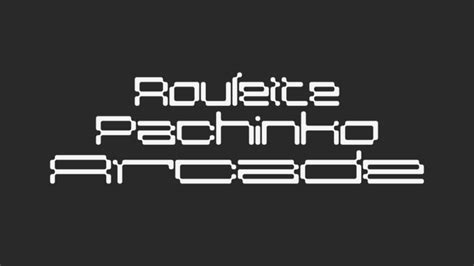
Oscan Expanded Font: A Typographic Deep Dive
Hey guys, let’s dive into the fascinating world of typography and talk about a specific font that’s been catching some eyes: the Oscan expanded font . Ever stumbled upon a typeface that just feels right for a certain design? That’s the power of well-crafted fonts, and Oscan expanded is definitely one to explore. We’re going to unpack what makes it tick, where it shines, and why you might want to add it to your design arsenal. So, grab your favorite beverage, get comfy, and let’s get this typographic party started!
Understanding the Oscan Expanded Font Family
So, what exactly is the Oscan expanded font? At its core, it’s a typeface designed with a specific aesthetic in mind. The “expanded” part is a huge clue here, guys. It means the letterforms are wider than their standard counterparts. Think of it like stretching out a regular font – but done with purpose and elegance. This increased width gives the font a distinct presence and a unique character that standard fonts just can’t replicate. The Oscan font family, in general, likely draws inspiration from historical or stylistic roots, and the expanded version takes that foundation and gives it a bold, attention-grabbing twist. When we talk about expanded fonts, we’re not just talking about making letters fat; we’re talking about creating visual harmony and impact through deliberate proportions. The Oscan expanded font achieves this by carefully balancing the increased width with other typographic elements like stroke contrast, x-height, and serif (or lack thereof) details. This thoughtful design process ensures that while it’s expanded, it remains highly legible and aesthetically pleasing. It’s the kind of font that can command attention without shouting, making it perfect for headlines, display text, or any situation where you want your message to stand out with sophisticated flair. The broader strokes and more generous spacing inherent in an expanded design can also contribute to a feeling of stability and confidence, making it a great choice for branding that aims to convey trust and authority. We’ll be exploring its characteristics, its applications, and why this particular font might be your next go-to for making a lasting impression in your designs. Get ready to appreciate the nuances that make Oscan expanded a truly special typographic tool.
The Anatomy of Expanded Type
Let’s break down the anatomy of what makes an expanded font like Oscan expanded so special. You see, it’s not just about making letters wider. Type designers spend ages perfecting these details , and with expanded fonts, there are specific considerations. Firstly, the letterforms themselves are designed with a wider horizontal emphasis . This means the bowls of letters like ‘b’ and ’d’, or the counterforms in ‘o’ and ‘e’, are more open and generous. The ascenders and descenders (the parts of letters that go above the x-height or below the baseline) might be slightly shorter or adjusted to maintain balance within the wider letter. The stroke contrast , which is the variation between thick and thin strokes, is also crucial. In many expanded fonts, this contrast might be subtle or even non-existent (in sans-serifs) to maintain a robust and even appearance across the wider forms. For Oscan expanded, depending on its classification (serif or sans-serif), this detail will greatly influence its personality. A sans-serif expanded font might feel very modern, clean, and bold, while a serif expanded font could evoke a sense of classic grandeur or vintage charm, but with a modern, impactful twist due to the width. The kerning and spacing are also meticulously handled. Designers have to ensure that even with the wider letters, the text doesn’t feel too spread out and remains readable. The optical adjustments made to spacing between specific letter pairs are vital for creating a smooth reading experience. Think about the space between a ‘W’ and an ‘A’ versus an ‘O’ and an ‘N’ – these subtleties are amplified in an expanded design. The overall visual weight of the Oscan expanded font is also a key factor. Its wider stance means it carries more visual weight than a condensed or even a regular font. This makes it excellent for catching the eye, but designers need to be mindful of this when pairing it with other typefaces or using it in large blocks of text. This increased weight can lend a feeling of solidity and importance to whatever it’s used for. The goal is always to create a harmonious and functional typeface, and for Oscan expanded, achieving this balance in its wider proportions is what sets it apart. It’s a masterclass in how subtle changes in form can lead to dramatic differences in impact and character, making it a powerful tool for any designer looking to make a statement.
The Oscan Expanded Font: Where Does It Shine?
Alright, guys, now that we’ve geeked out about the nitty-gritty of expanded type, let’s talk about where the Oscan expanded font truly shines. Because, let’s be honest, not every font is a one-size-fits-all solution, right? This font’s unique characteristics make it a star player in specific scenarios. Headlines and display text are probably its natural habitat. That bold, wide stance immediately grabs attention. Imagine a striking movie poster, a high-impact advertisement, or the title of a magazine spread – Oscan expanded can give these elements a powerful, unforgettable presence. It’s the kind of font that says, “Hey, look over here!” without being obnoxious. It lends an air of sophistication and confidence to any prominent text. Think of brands that want to convey strength, luxury, or a contemporary edge; Oscan expanded can be a fantastic choice for their wordmarks or taglines. Logos and branding are another area where this font can excel. Its distinctive shape can make a brand’s identity instantly recognizable. When a logo needs to be bold, memorable, and stand out on various platforms, an expanded font like Oscan can provide that visual punch. It feels grounded and established, which is often a desirable trait for many businesses. Event invitations and posters can also benefit immensely. If you’re promoting an event that needs to feel special, perhaps a gala, a concert, or a gallery opening, Oscan expanded can add a touch of elegance and importance to the event details. It elevates the perceived value of the occasion. Furthermore, short-form copy where impact is key can utilize this font effectively. While it might not be the best choice for long paragraphs of body text due to its width (potentially slowing down reading speed over extended periods), for impactful quotes, call-to-action buttons, or even short, punchy descriptions, it can be incredibly effective. Its legibility is usually maintained at larger sizes, making it suitable for signage or informational displays where clear, bold messaging is paramount. The key is understanding its strengths: boldness, presence, and a distinctive character . When you need your text to make a statement and leave a lasting impression, Oscan expanded is a font that deserves serious consideration. It’s not just a font; it’s a design element that can shape the entire perception of your message.
Pairing Oscan Expanded with Other Fonts
Okay, so you’ve got this awesome Oscan expanded font, and you’re ready to make some design magic. But wait! What do you pair it with? This is where things get really interesting, guys. Choosing the right complementary fonts is crucial to creating a balanced and professional design. Think of it like a good outfit – you need the right accessories to make it pop. For Oscan expanded, which is inherently bold and attention-grabbing, you generally want to pair it with fonts that offer contrast in terms of weight, style, or width. A great go-to is a clean, legible sans-serif font for your body text. Something simple like Open Sans, Lato, or Roboto can provide a neutral, readable counterpoint to the more expressive Oscan expanded. This pairing creates a clear hierarchy: the Oscan expanded grabs attention for your headlines, and the simpler sans-serif makes your main content easy to digest. Alternatively, a classic serif font can work wonders, especially if Oscan expanded has a more modern or geometric feel. A timeless serif like Garamond, Merriweather, or even a more robust slab serif can add a layer of sophistication and tradition. This combination can be particularly effective for branding that aims for a blend of modern impact and classic appeal. Consider the mood you want to convey . If Oscan expanded feels strong and authoritative, pairing it with a softer, more humanist font can create an interesting dynamic. If Oscan expanded is sleek and minimalist, perhaps a font with a bit more personality or ornamentation could provide a delightful contrast. Don’t be afraid of exploring different weights within a font family . If Oscan expanded is, say, a bold display font, pairing it with the light or regular weights of the same font family (if available and appropriate) can create a cohesive yet varied look. The rule of thumb is contrast, not chaos . You want the fonts to complement each other, not compete. This means ensuring they share some underlying visual harmony, perhaps in their x-height, serif style (if applicable), or overall character. Test, test, test! What looks good on paper (or screen) might need tweaking. Zoom in, zoom out, and see how the fonts interact at different sizes and in different contexts. When Oscan expanded is used for a headline, how does the body text sit below it? Does it feel balanced? Does it draw the eye where you want it to? Be mindful of too many fonts . Generally, sticking to two or three font families is a safe bet to avoid a cluttered and unprofessional look. Oscan expanded should be the star, and its supporting cast should enhance, not overwhelm, its performance. By carefully selecting its typographic companions, you can ensure that Oscan expanded delivers its full visual impact while maintaining readability and aesthetic integrity across your entire design project.
Why Choose Oscan Expanded for Your Next Project?
So, guys, we’ve dissected the Oscan expanded font, explored its anatomy, and figured out where it shines. Now, the big question: why should you choose Oscan expanded for your next project? Let’s sum it up. Impact and Memorability . This is the most obvious reason. In a world flooded with visual information, Oscan expanded cuts through the noise. Its generous width and strong presence make it incredibly memorable. If you need your message to stick, this is your guy. Versatility in Display Applications . While it might not be your go-to for lengthy prose, its versatility for headlines, logos, posters, and other display uses is undeniable. It can adapt its character to suit a range of styles, from modern and sleek to bold and classic, depending on the design context. Sophistication and Professionalism . Despite its boldness, Oscan expanded often carries an air of sophistication. It’s not a novelty font; it’s a carefully crafted typeface that, when used correctly, elevates the perceived quality and professionalism of your work. Unique Character . Tired of the same old fonts? Oscan expanded offers a distinct personality that can help your brand or project stand out from the crowd. It’s a way to inject a unique visual identity that resonates with your target audience. Design Flexibility . As we discussed with pairings, it can work harmoniously with a variety of other fonts, giving you the flexibility to create complex and visually appealing layouts. You’re not locked into a single aesthetic; you can build a comprehensive typographic system around it. Making a Statement . Ultimately, choosing Oscan expanded is about making a statement. It’s for designs that aren’t afraid to be bold, to be seen, and to be remembered. It’s about conveying confidence, strength, and a clear message. So, next time you’re staring at a blank canvas and need a font that commands attention with style and substance, give Oscan expanded font a serious look. It might just be the secret ingredient your design has been missing. Happy designing, everyone!